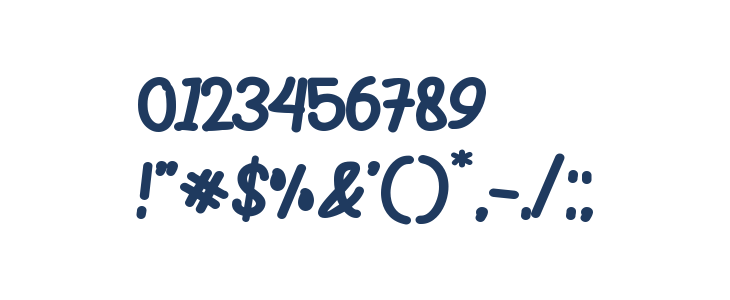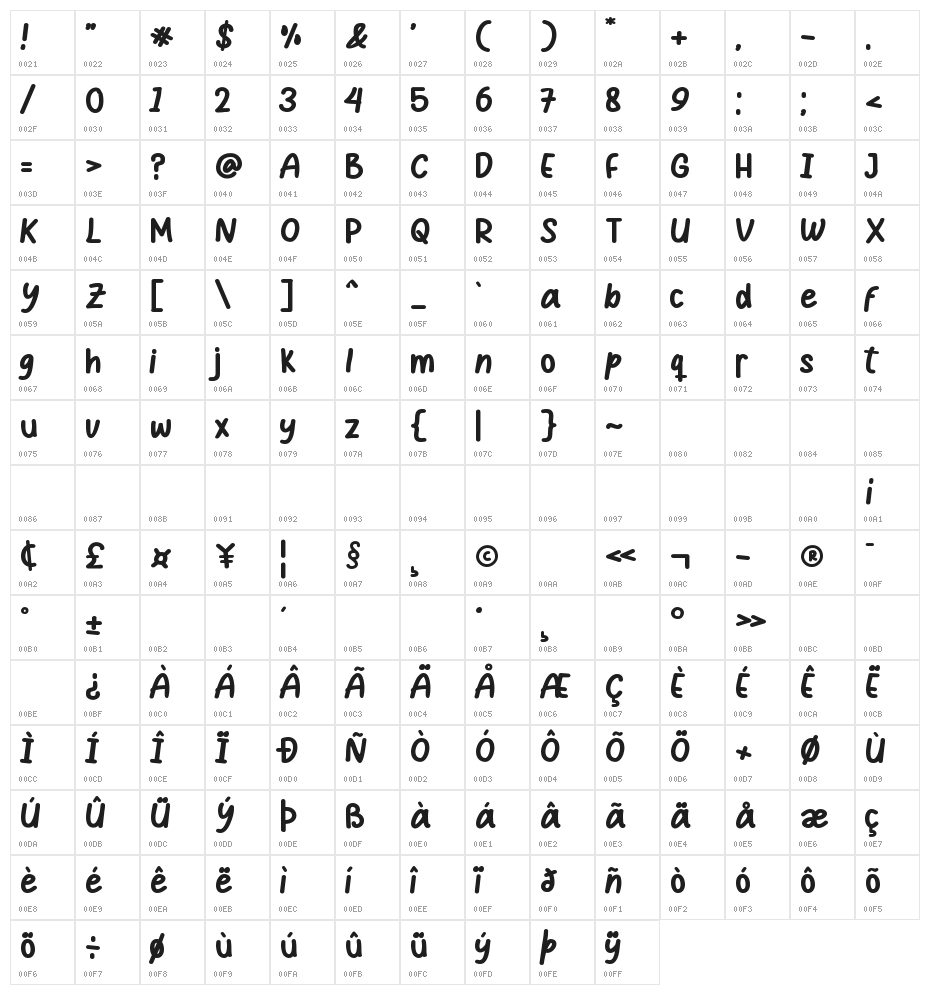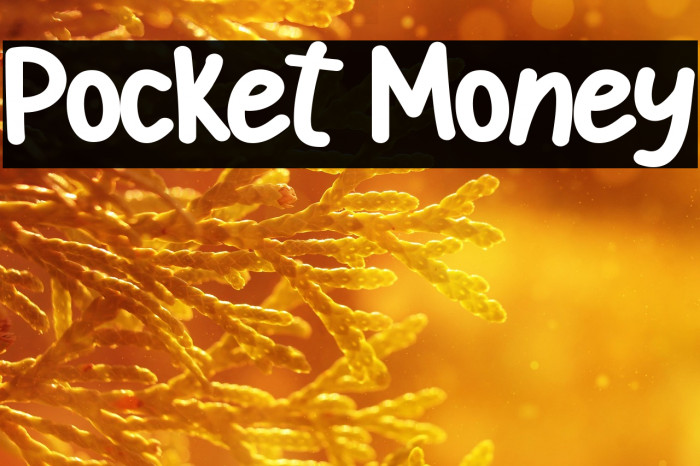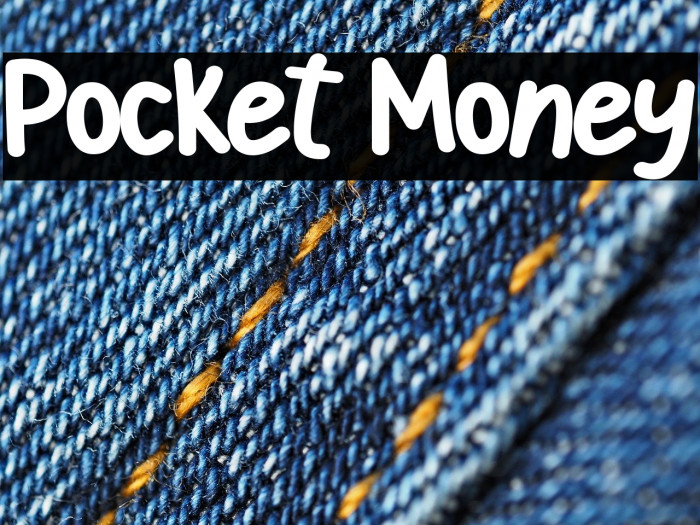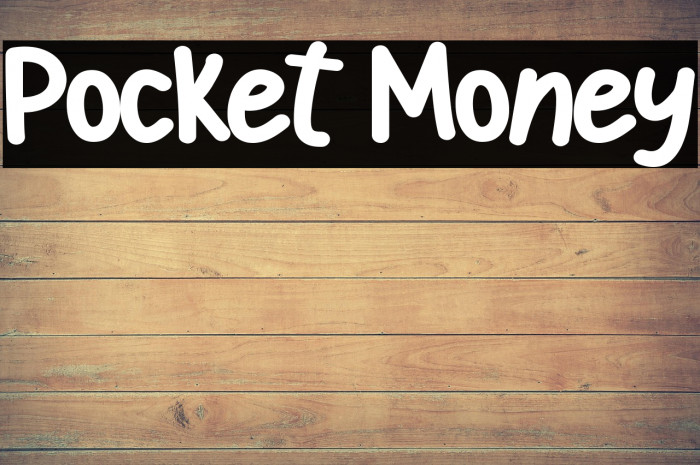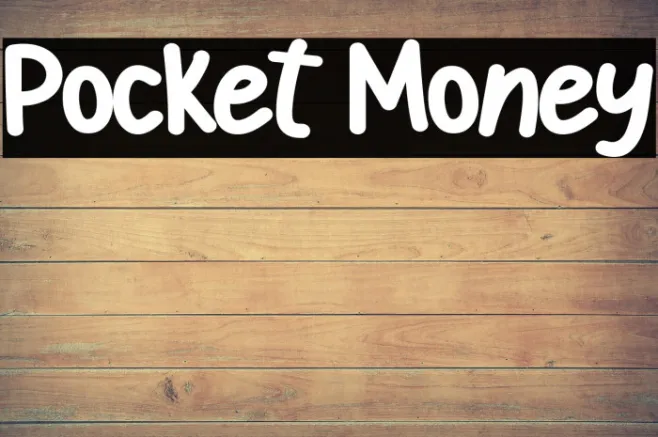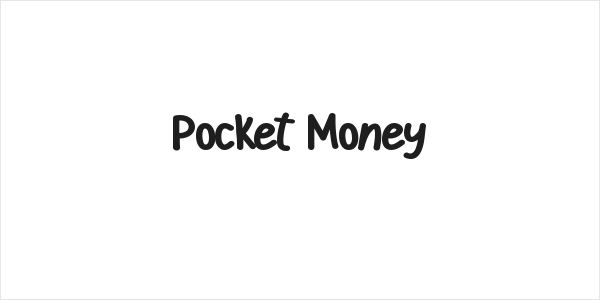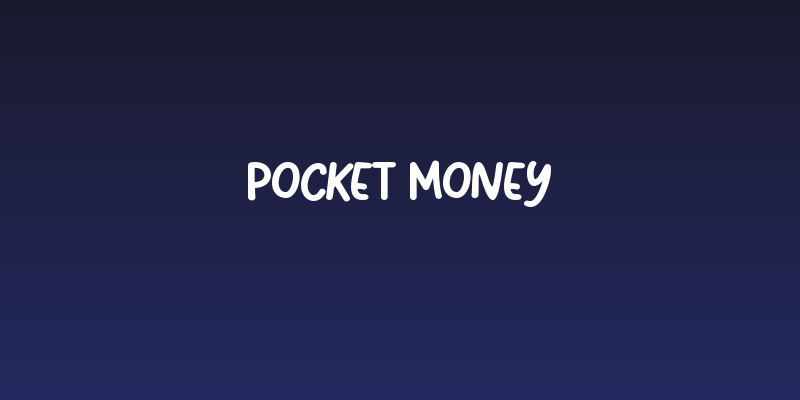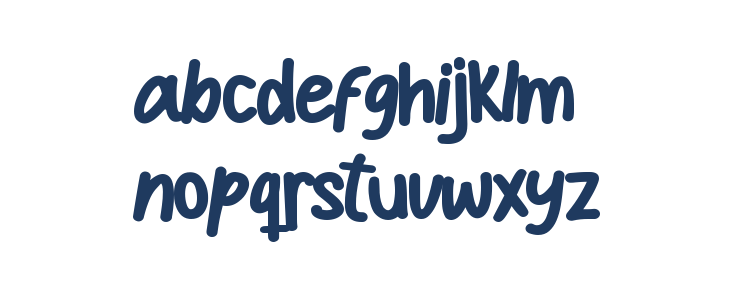
Pocket Money Font
Pocket Money Description
This playful and bold font features a handwritten style with rounded edges and a casual, friendly appearance. The characters are slightly irregular, adding to the informal and approachable feel. The uppercase and lowercase letters maintain a consistent weight, giving the font a cohesive look. The numbers and special characters are designed to match the overall style, ensuring versatility in various applications. The font's thick strokes and smooth curves make it highly legible, even at smaller sizes, while its unique personality shines through in larger displays.
| Proposed Projects | Ideal for children's books, playful branding, greeting cards, and informal posters. |